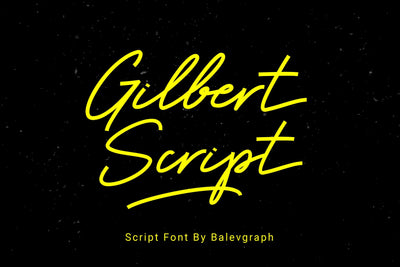
Gilbert Script Font
Gilbert Script is a bold and modern script font. Be intrigued by its ravishing style and use it to create beautiful wedding invitations, beautiful stationary art, engaging social media posts and more!